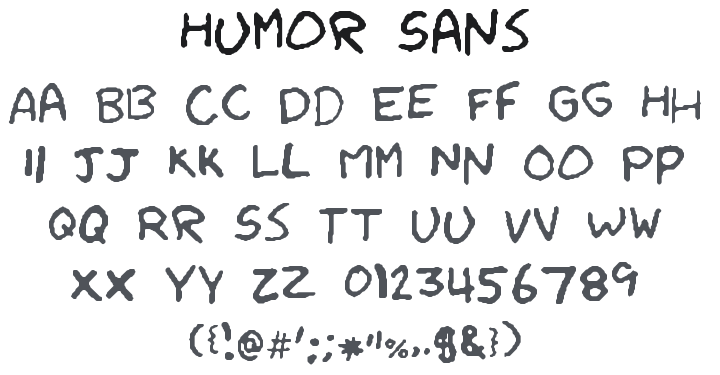
Humor Sans Font
About Humor Sans
Humor Sans is a handwritten sans-serif typeface created by developer and hobbyist ch00f (Mike), crafted by tracing letterforms directly from Randall Munroe's xkcd webcomic strips to faithfully capture the artist's distinctive informal handwriting style. The font is all-caps by design, with lowercase keys producing alternate glyph variants to simulate the natural variation of hand-lettered text. Best used at 12–14 points, Humor Sans is widely recognized as the typeface behind xkcd-style data visualizations, popularized further by its inclusion in Python's matplotlib library as the basis for the built-in xkcd chart mode. It suits informal presentations, humorous illustrations, whiteboard-style diagrams, and any context where a casual, hand-drawn aesthetic is desired.